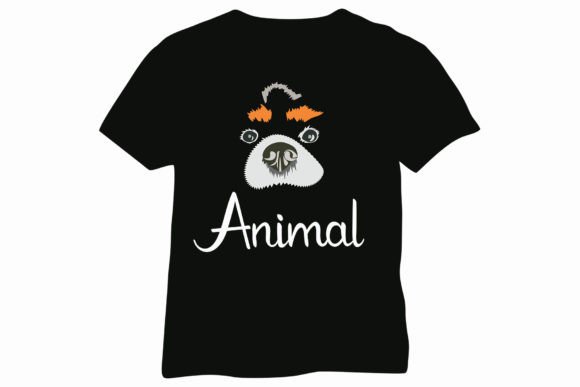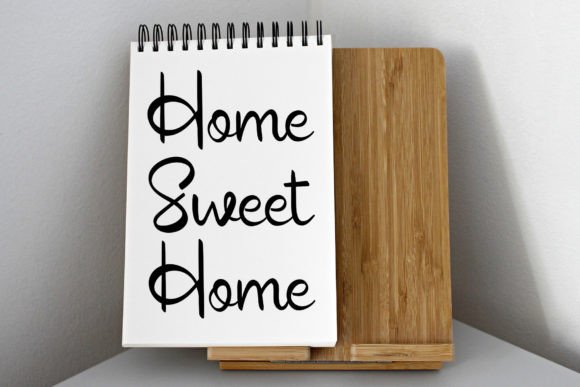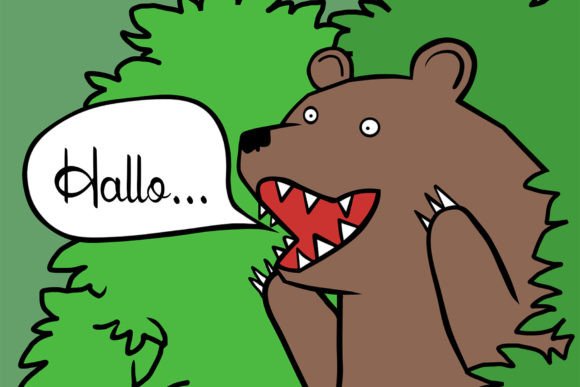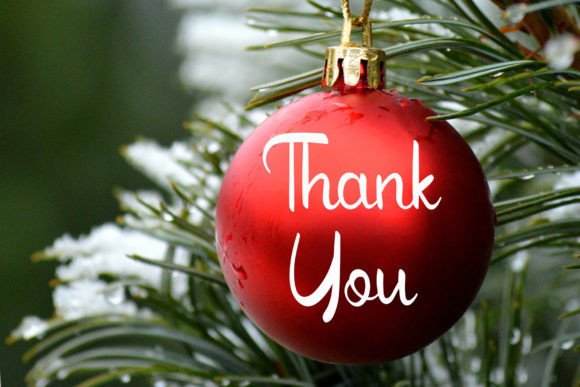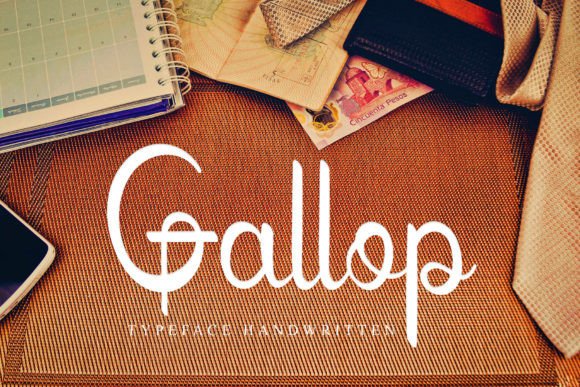
Gallop Font: Elevate Your Designs with Elegance and Sophistication
In the world of typography, a well-chosen font can make all the difference in the success of a design project. For designers and crafters seeking to add a touch of elegance and sophistication to their work, the Gallop Font is an excellent choice. This unique and elegant handwritten font is perfect for a variety of applications, from wedding invitations and greeting cards to billboards, logos, and business cards.
The Characteristics of Gallop Font
Gallop Font is a beautiful, handwritten typeface that exudes refinement and poise. Its elegant strokes and flowing lines make it an ideal choice for designs that require a personal and sophisticated touch. The font’s unique characteristics include:
- Elegant Handwritten Style: Gallop Font features a beautiful, handwritten style that adds a touch of warmth and personality to any design.
- Versatility: Gallop Font is suitable for a wide range of design applications, from wedding invitations and greeting cards to billboards, logos, and business cards.
Wedding invitations and greeting cards are special occasions that call for a unique and elegant font. Gallop Font is an excellent choice for these types of designs, as it adds a touch of sophistication and romance. The font’s elegant strokes and flowing lines make it perfect for:
- Wedding Invitations: Create beautiful and memorable wedding invitations that set the tone for the special day.
- Greeting Cards: Add a personal touch to greeting cards for birthdays, anniversaries, and other special occasions.
Ideal for Billboards, Logos, and Business Cards
Gallop Font is not just limited to printed materials; it’s also suitable for larger-scale applications such as billboards, logos, and business cards. The font’s elegant style and clear readability make it an excellent choice for:
- Billboards: Create eye-catching billboards that showcase your brand’s personality and style.
- Logos: Develop a unique and memorable logo that sets your brand apart from the competition.
- Business Cards: Add a touch of elegance and sophistication to your business cards, making a lasting impression on potential clients.
Why Choose Gallop Font?
With so many fonts available, why choose Gallop Font? Here are just a few reasons why designers and crafters love this elegant handwritten font:
- Unique and Elegant Style: Gallop Font offers a distinctive and refined style that adds a touch of sophistication to any design.
- Versatility: Gallop Font is suitable for a wide range of design applications, making it a valuable addition to any designer’s font library.
In conclusion, Gallop Font is an excellent choice for designers and crafters seeking to add a touch of elegance and sophistication to their work. With its unique and elegant handwritten style, PUA encoding, and versatility, this font is perfect for a wide range of design applications. Whether you’re creating wedding invitations, greeting cards, billboards, logos, or business cards, Gallop Font is sure to elevate your designs and leave a lasting impression.